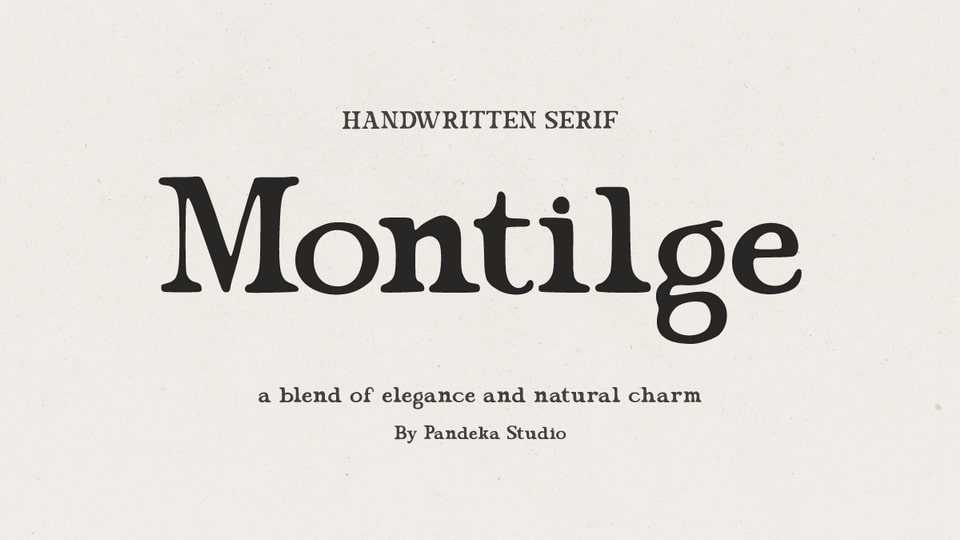
Download Montilge font, a natural handwritten serif typeface with elegant typography and a rustic aesthetic. Perfect for timeless designs, classic lettering, and authentic projects.